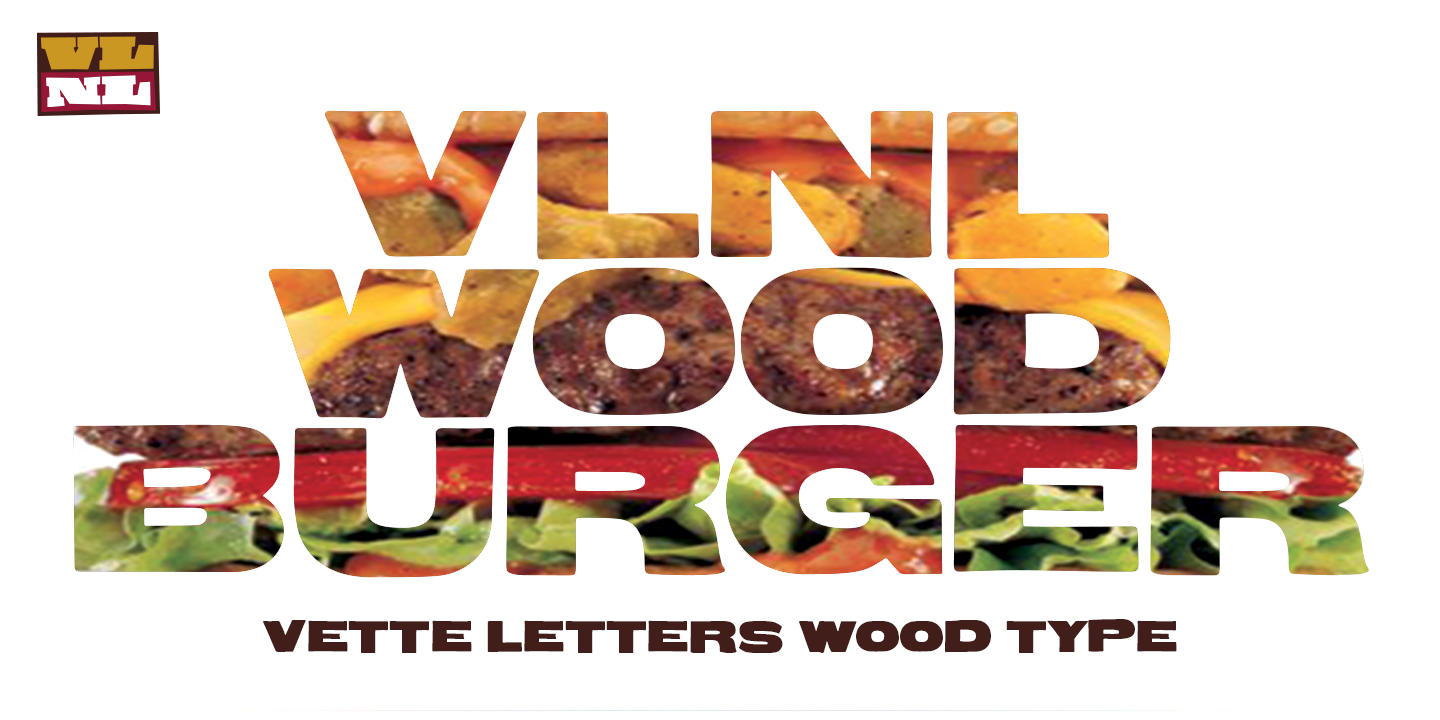
The VLNL Wood Burger Font is an excellent choice for designs that aim for a rustic, hearty, and distinctly handcrafted aesthetic, often evoking the warmth of natural materials and artisanal food. Imagine it boldly carved onto the signage of a gourmet burger joint, adding an authentic, wholesome touch to craft beer labels, or bringing a robust, inviting feel to farmers' market branding. It's also perfectly suited for food truck menus, natural product packaging, outdoor event promotions, and any project where you want to convey a sense of genuine quality, tradition, and a unique, personal touch. Its often sturdy, textured forms, and approachable appearance make it ideal for conveying sincerity and a hearty, artisanal flair.
What makes the VLNL Wood Burger Font so exciting is its ability to instantly infuse a design with a feeling of warmth, comfort, and handmade originality. It frequently features subtle imperfections and a natural, textured quality that mimics carved wood or a hand-printed block, making it feel organic and incredibly inviting. This font has a charming and distinctive personality that can instantly elevate your design, making it feel both quaint and deliciously expressive. It’s designed to capture attention with its unassuming beauty, ensuring your message is not just seen, but felt with a sense of delightful authenticity.
The VLNL Wood Burger Font family typically might offer a few key weights to best maintain its distinctive character, possibly including stylistic alternates or unique ligatures that enhance its handcrafted or rustic appeal. While it might not always have an extensive range of weights, its strength lies in its unique visual style and inherent expressiveness. These variations empower designers to create a truly inviting and memorable display, ensuring the VLNL Wood Burger Font Free Download can adapt to a wide array of projects while maintaining its signature, cozy charm.